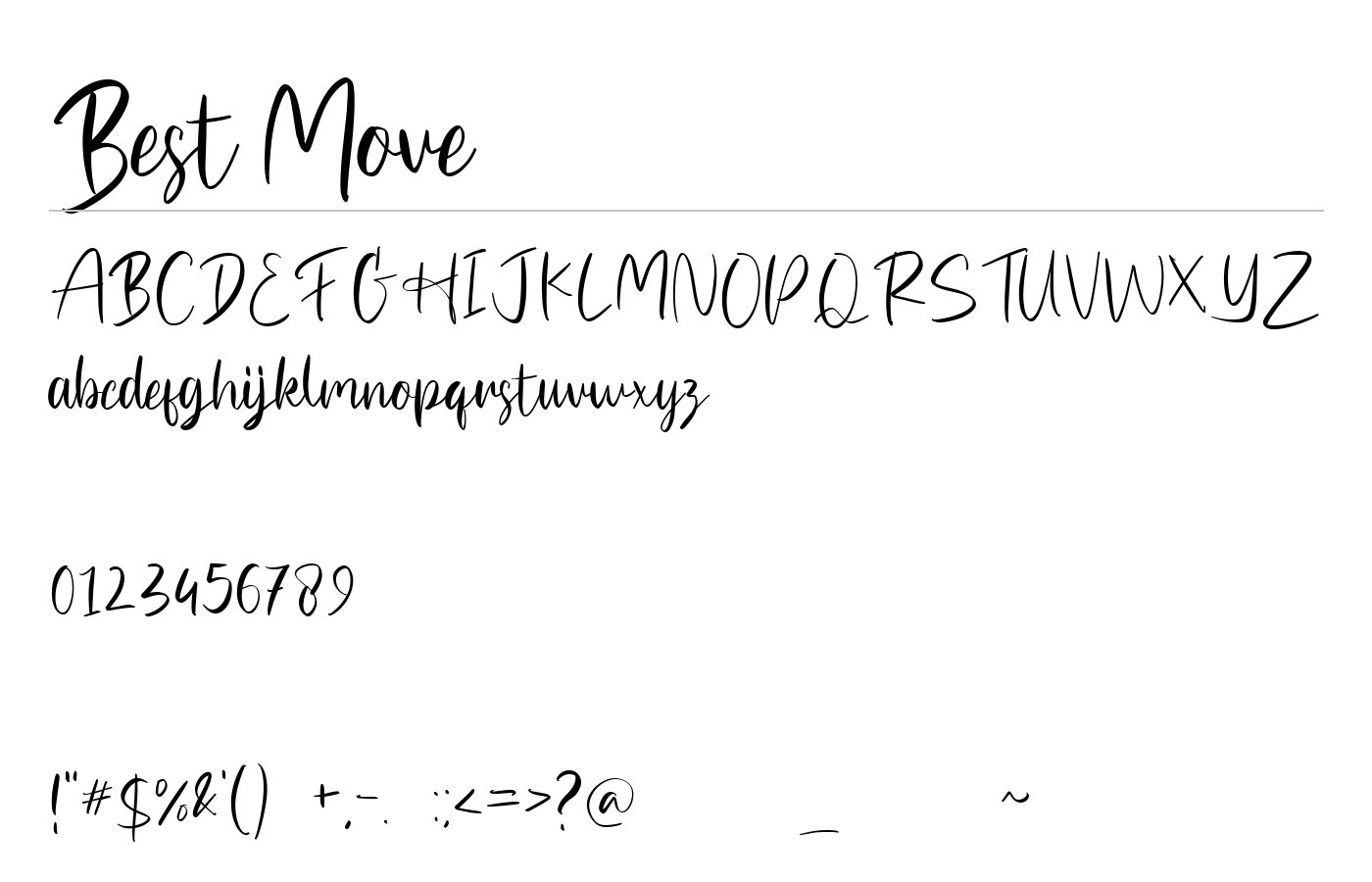
Best Move is a lively, handwritten script font with a casual and friendly vibe. Its tall, narrow letterforms and varying stroke thickness give it a natural, personal feel that works beautifully for creative branding, invitations, and eye-catching headlines. This font’s playful yet elegant style makes it a great choice for projects seeking a warm, approachable look.
Best Move Font
About Best Move Font